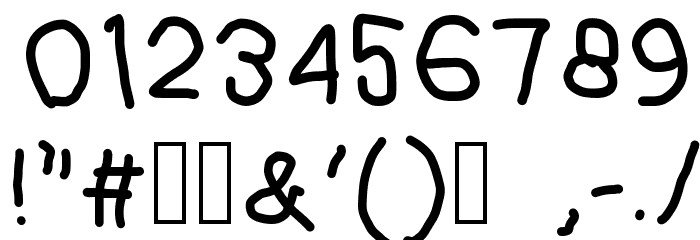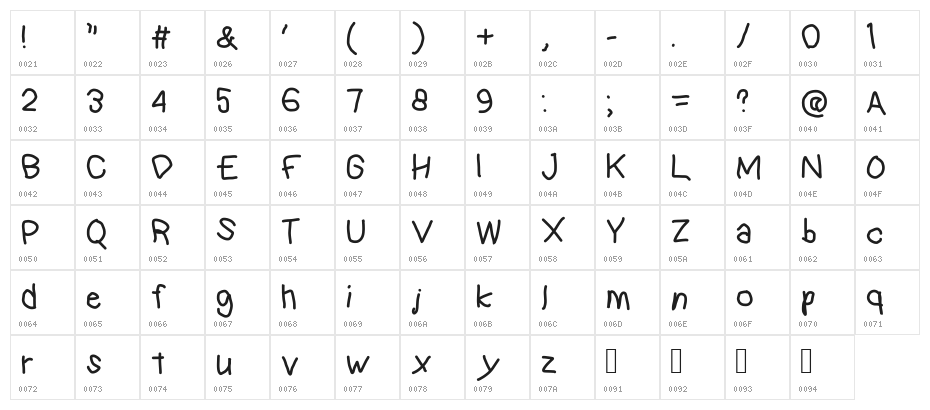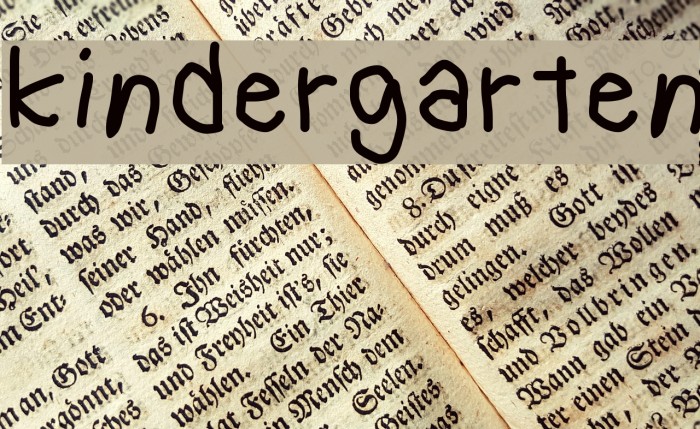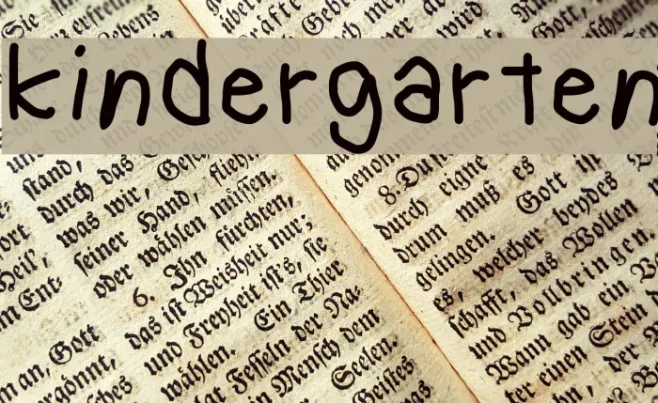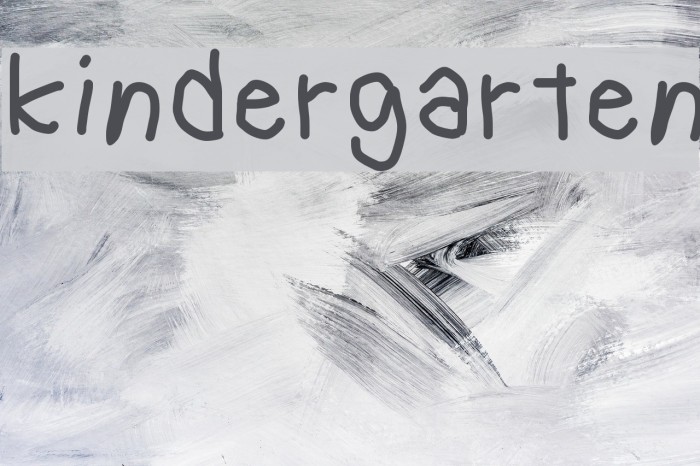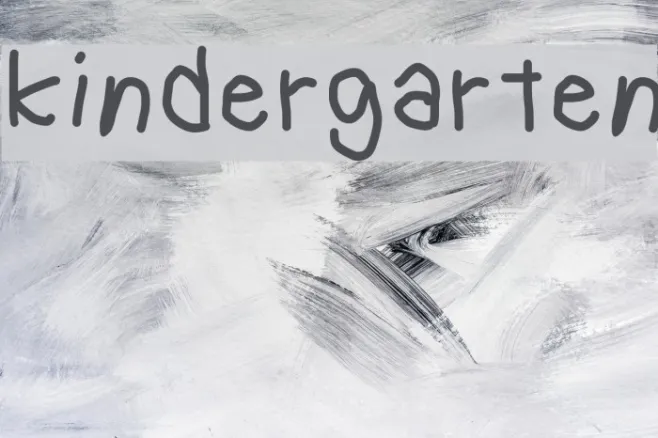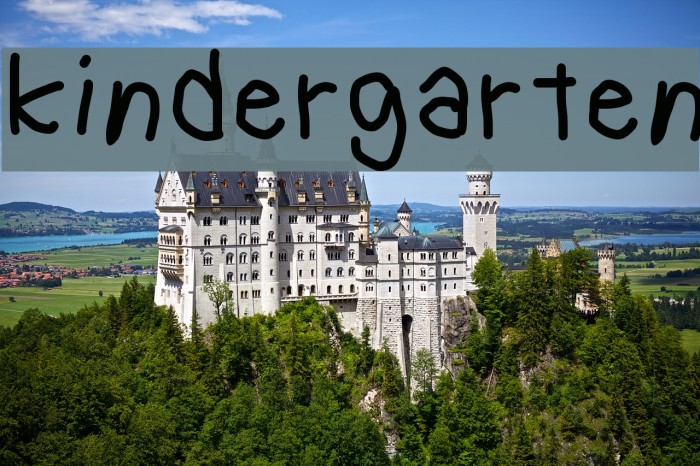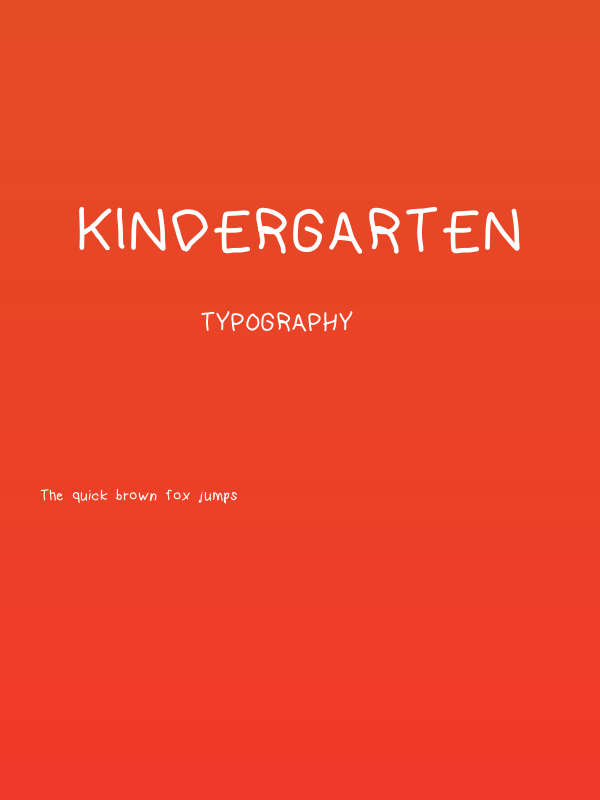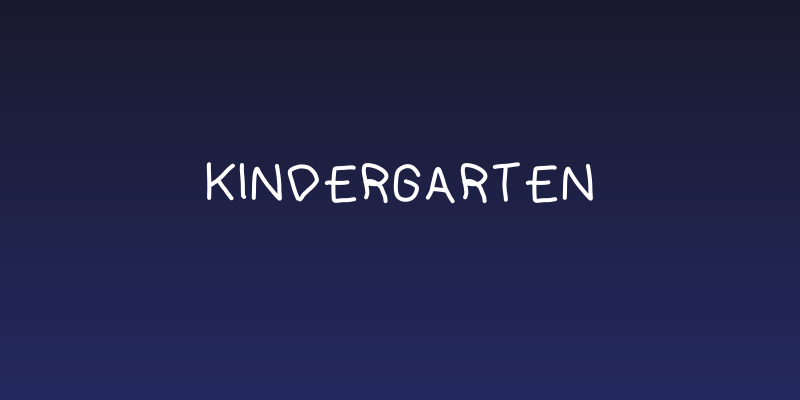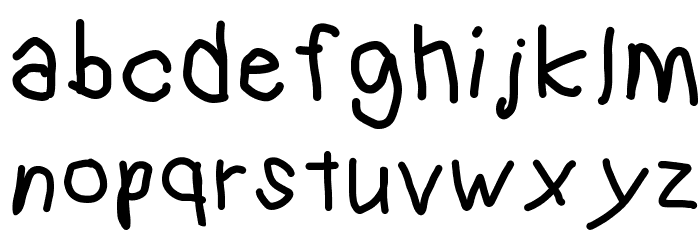
kindergarten Font
kindergarten Description
This playful and informal font exudes a childlike charm, reminiscent of handwriting with a crayon or marker. The letters are rounded and slightly irregular, giving it a whimsical and approachable feel. The uppercase and lowercase letters maintain a consistent style, with a slight tilt and varying stroke thickness that adds to its casual appearance. Numbers and special characters follow the same playful design, making it suitable for projects aimed at children or those seeking a lighthearted tone. The font's simplicity and readability make it ideal for educational materials, children's books, or playful branding.
Overall StylePlayful, Informal
Use CaseHeadlines, Logos, Educational materials
Proposed ProjectsIdeal for children's books, educational materials, playful branding, and informal invitations.